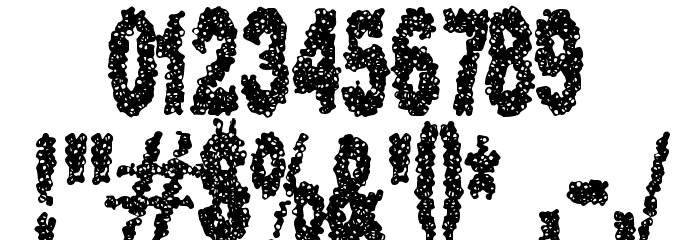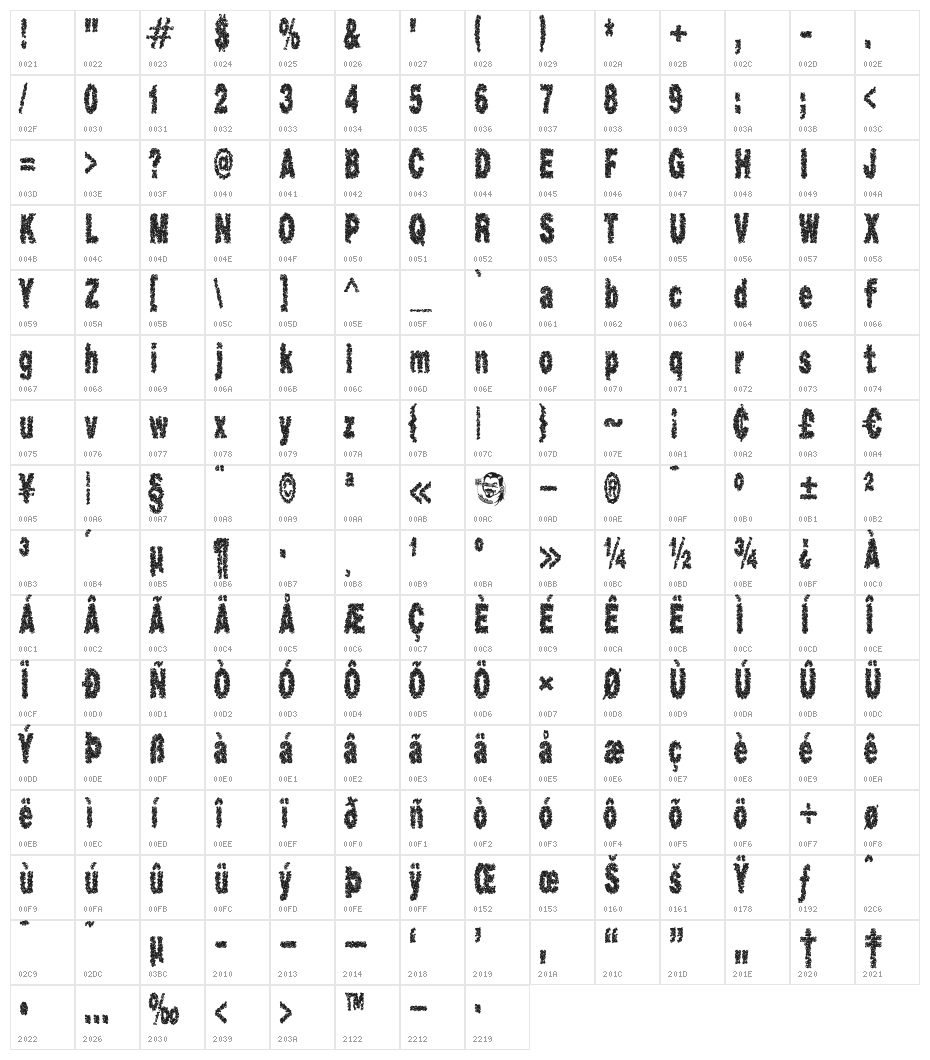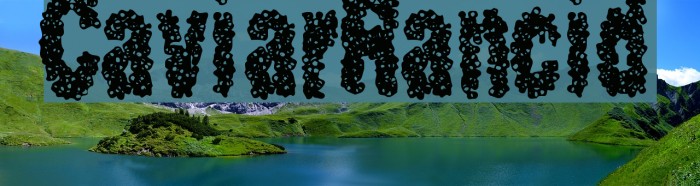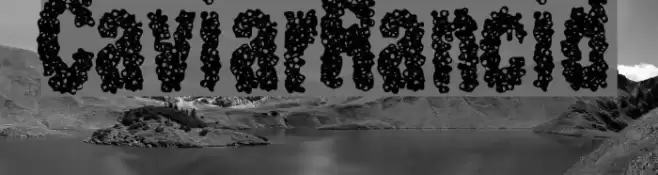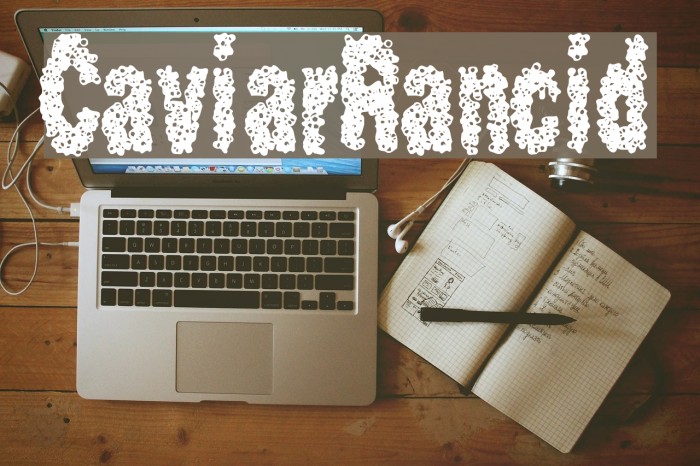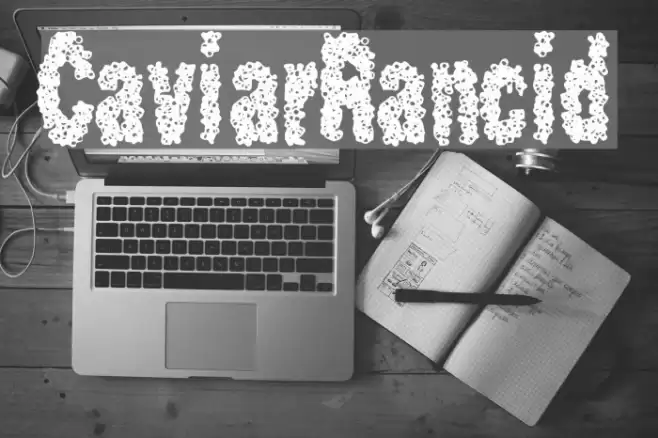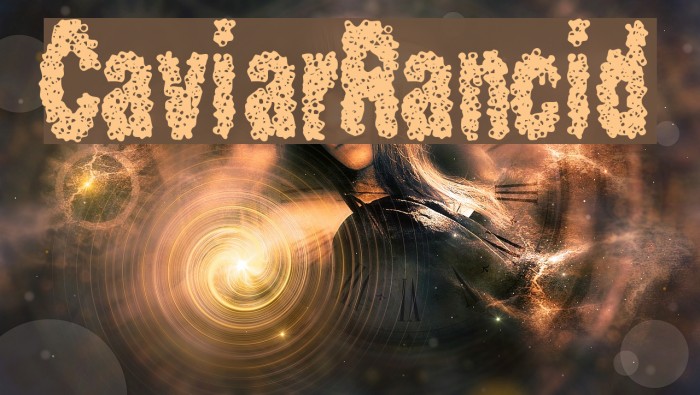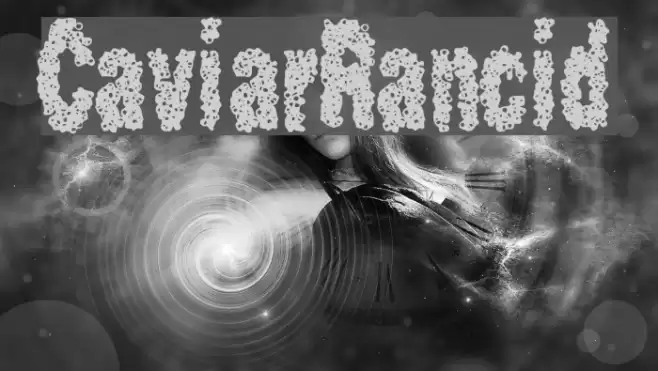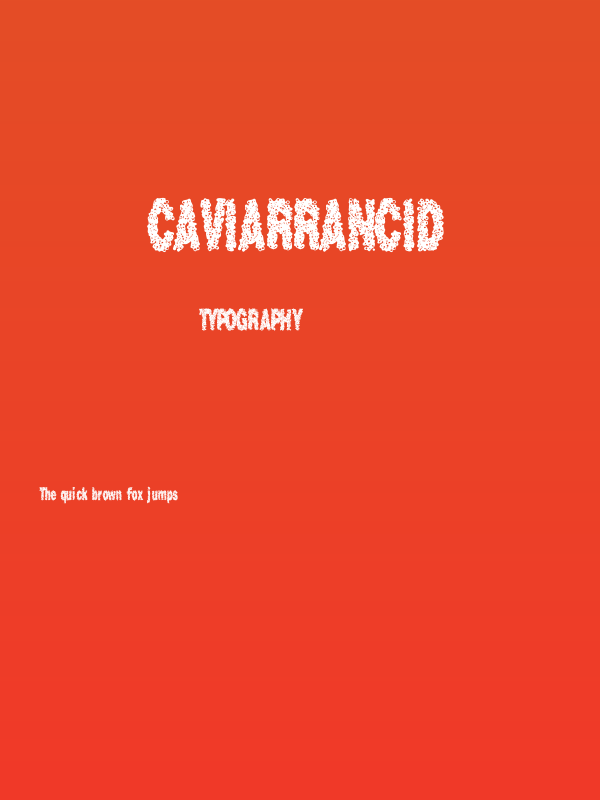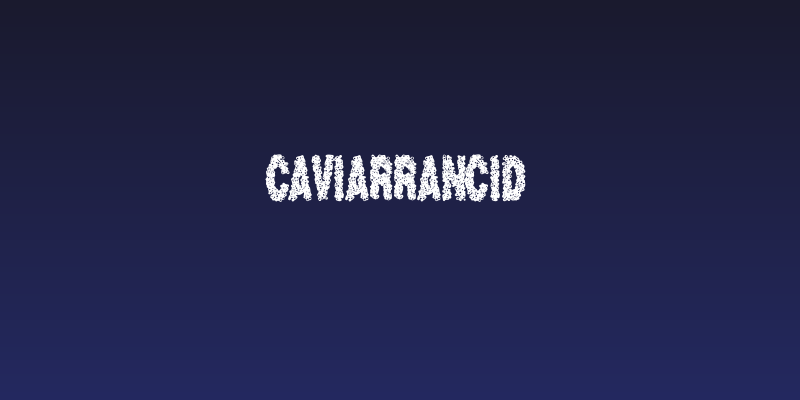
CaviarRancid Font
CaviarRancid Description
This font features a highly decorative and textured style, characterized by a unique pattern of circular and irregular shapes filling each letterform. The overall appearance is bold and eye-catching, making it ideal for designs that require a strong visual impact. The uppercase and lowercase letters maintain a consistent style, with the same intricate detailing applied throughout. Numbers and special characters are equally stylized, ensuring a cohesive look across all text elements. The font's playful and artistic nature lends itself well to creative projects where a distinctive and unconventional typeface is desired.
| Proposed Projects | Ideal for posters, album covers, artistic branding, and creative event invitations. |